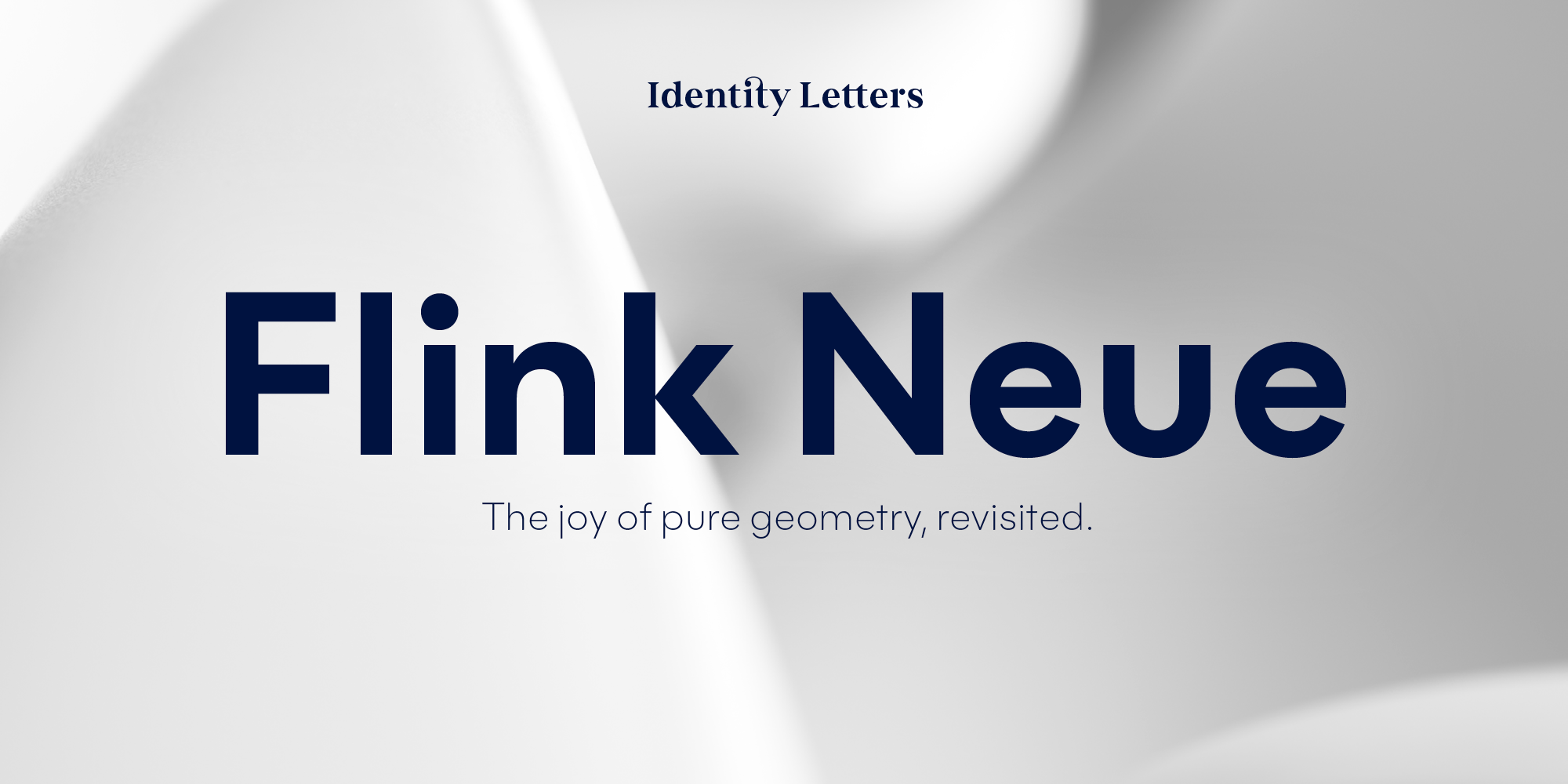
Flink Neue Font is perfect for modern tech startups, agile software companies, fast-paced marketing campaigns, dynamic web interfaces, innovative app designs, rapid delivery services, efficiency-focused branding, contemporary corporate communications, speed-oriented advertising, and any projects that need energetic typography with swift movement and forward momentum.
What makes Flink Neue Font exciting is its dynamic design that embodies speed, agility, and forward-thinking innovation with letterforms that appear to move with purposeful velocity and modern efficiency. This energetic typeface features streamlined characteristics with subtle angular details that suggest rapid movement and progressive action, creating an atmosphere of productivity and cutting-edge performance. The font's kinetic character makes it perfect for brands seeking to communicate speed, efficiency, and the dynamic energy of fast-moving industries in today's accelerated business environment.
Flink Neue Font family includes velocity-inspired weight variations featuring thin, light, regular, medium, bold, and black options. The font family also offers italic versions with enhanced momentum characteristics, along with condensed variants optimized for high-speed communication applications. Special features include dynamic ligatures, motion-inspired alternates, and streamlined spacing that enhances the impression of swift, efficient typography.